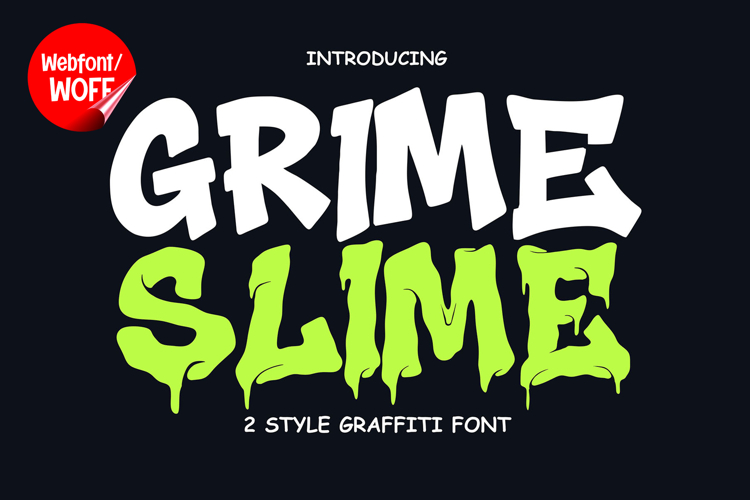
Grime Slime | Melted Graffiti Webfont for Urban Websites
Grime Slime is a bold melted graffiti webfont designed to bring a raw, dripping street style into your website design. Inspired by urban art and spray-painted textures, this font features fluid, melting shapes that create a dynamic and edgy visual effect. It is the perfect choice for designers who want to add a rebellious, energetic, and expressive touch to digital projects.
The font includes a full set of uppercase characters, designed with bold proportions and dripping details that reflect authentic graffiti style. These uppercase letters are ideal for headlines, hero sections, banners, and featured content. Their unique melted appearance instantly draws attention, helping your website stand out and create a strong first impression.
Grime Slime also includes numbers and punctuation, allowing for consistent use across different parts of your website. Whether you are showcasing prices, dates, promotional content, or navigation elements, the font maintains its distinctive look while remaining functional. The dripping design adds character without compromising usability, making it both creative and practical.
With multilingual support, Grime Slime allows you to reach a wider audience while maintaining a consistent visual identity. It includes a range of accented characters, making it suitable for international websites and global brands. This ensures your content remains visually cohesive across different languages and regions.
The melted graffiti style of Grime Slime is perfect for projects that embrace urban culture, streetwear aesthetics, and bold visual storytelling. It works exceptionally well for music websites, gaming platforms, creative portfolios, event promotions, and youth-focused brands. The font’s fluid and organic shapes create movement within the text, adding depth and personality to your design.
Despite its artistic style, Grime Slime is designed with readability in mind. The spacing and structure of each character are balanced to ensure clarity, even when used in digital layouts. This makes it suitable not only for large display text but also for short UI elements where legibility is important.
Grime Slime is more than just a graffiti font—it is a statement piece that transforms ordinary text into expressive visual content. Its dripping, melted style captures attention and communicates a bold, urban identity that resonates with modern audiences. If you are looking for a webfont that combines creativity, performance, and strong character, Grime Slime is an excellent addition to your website design toolkit.